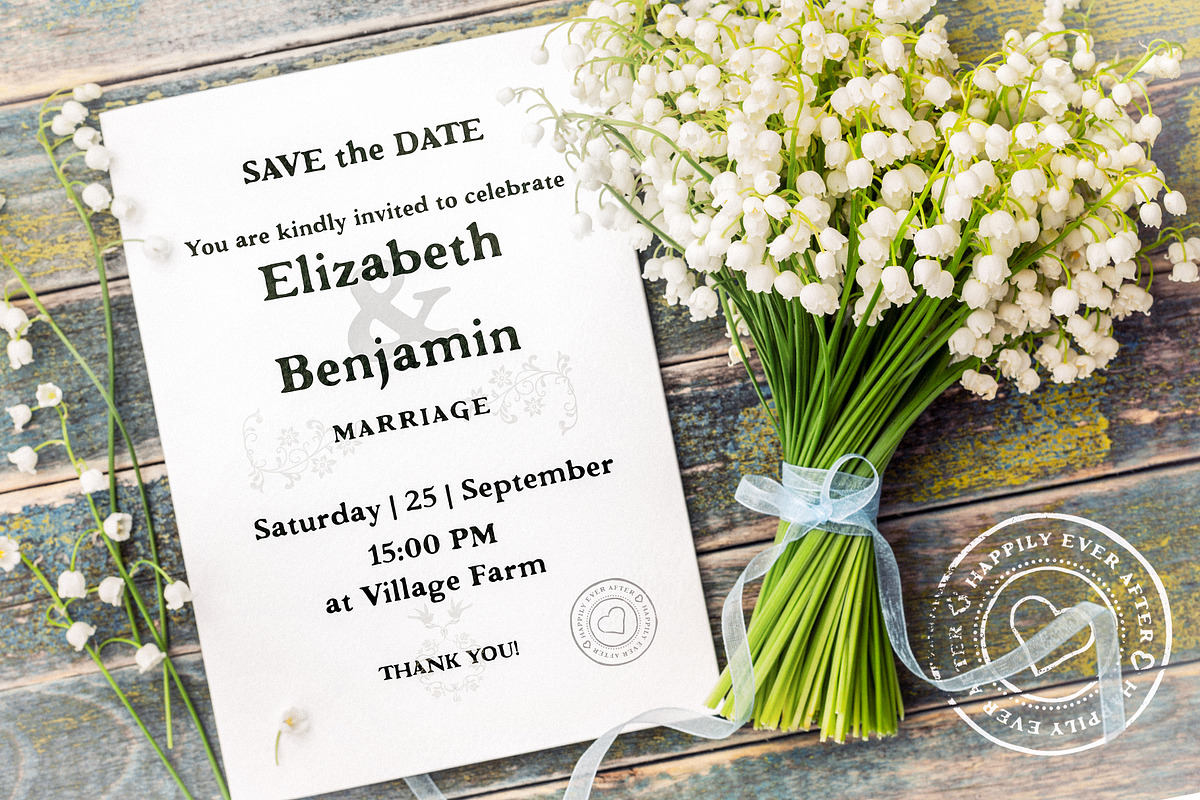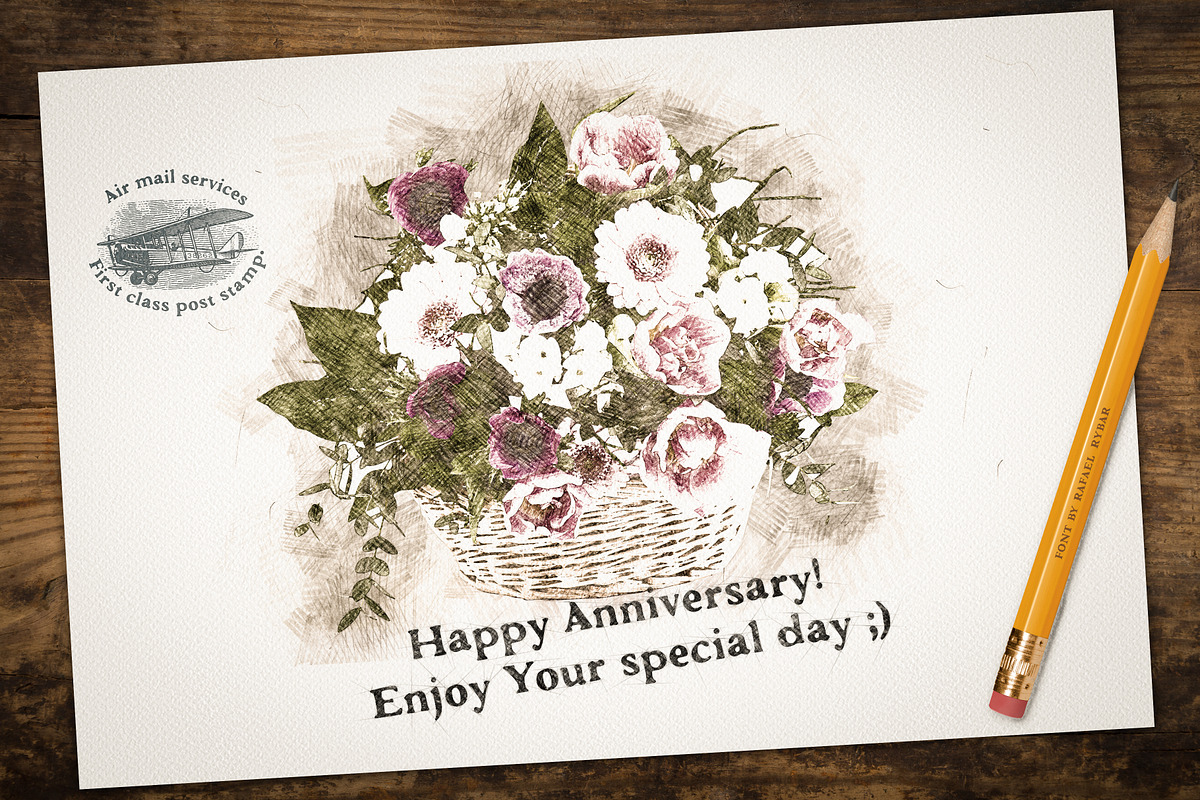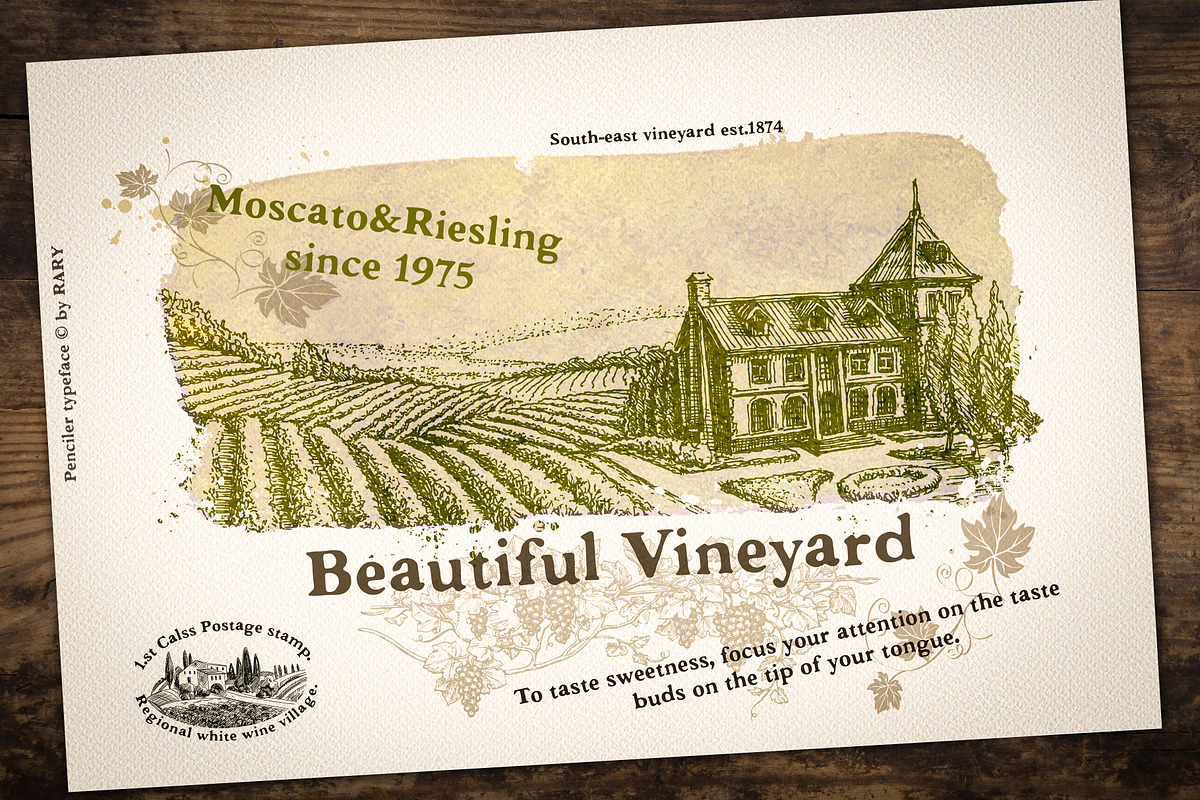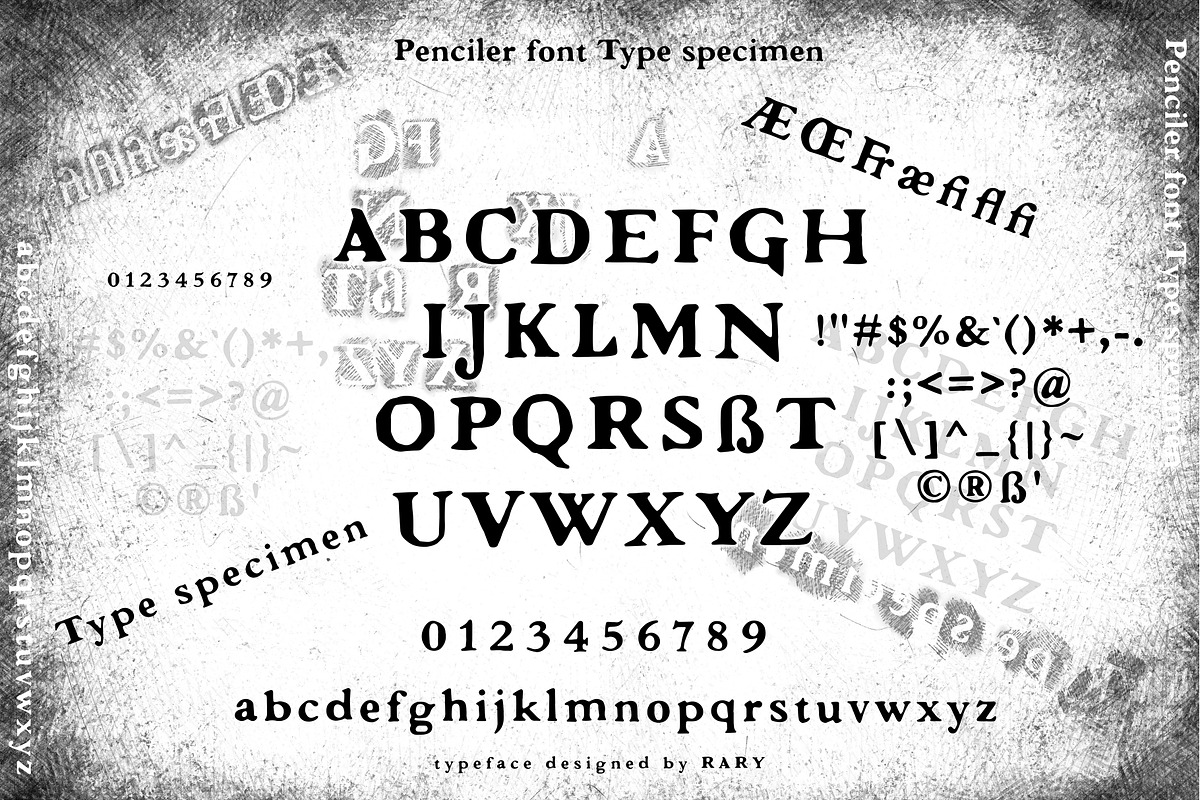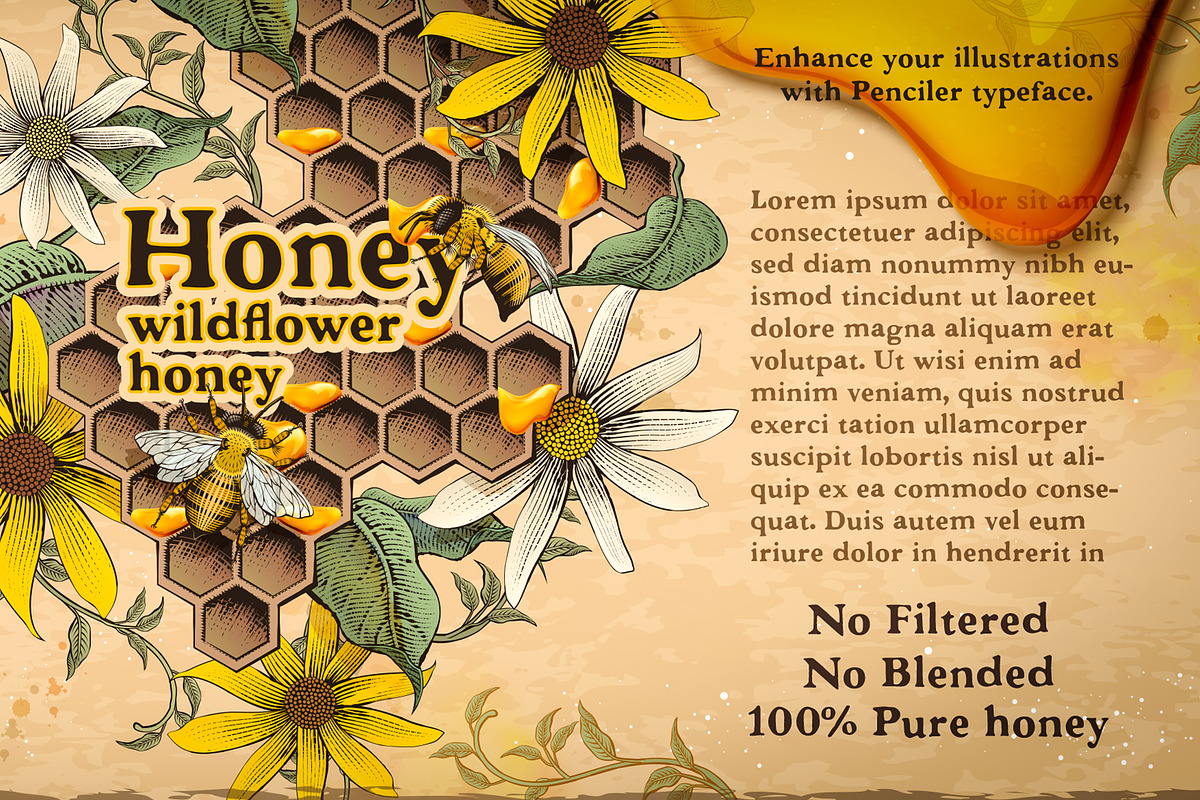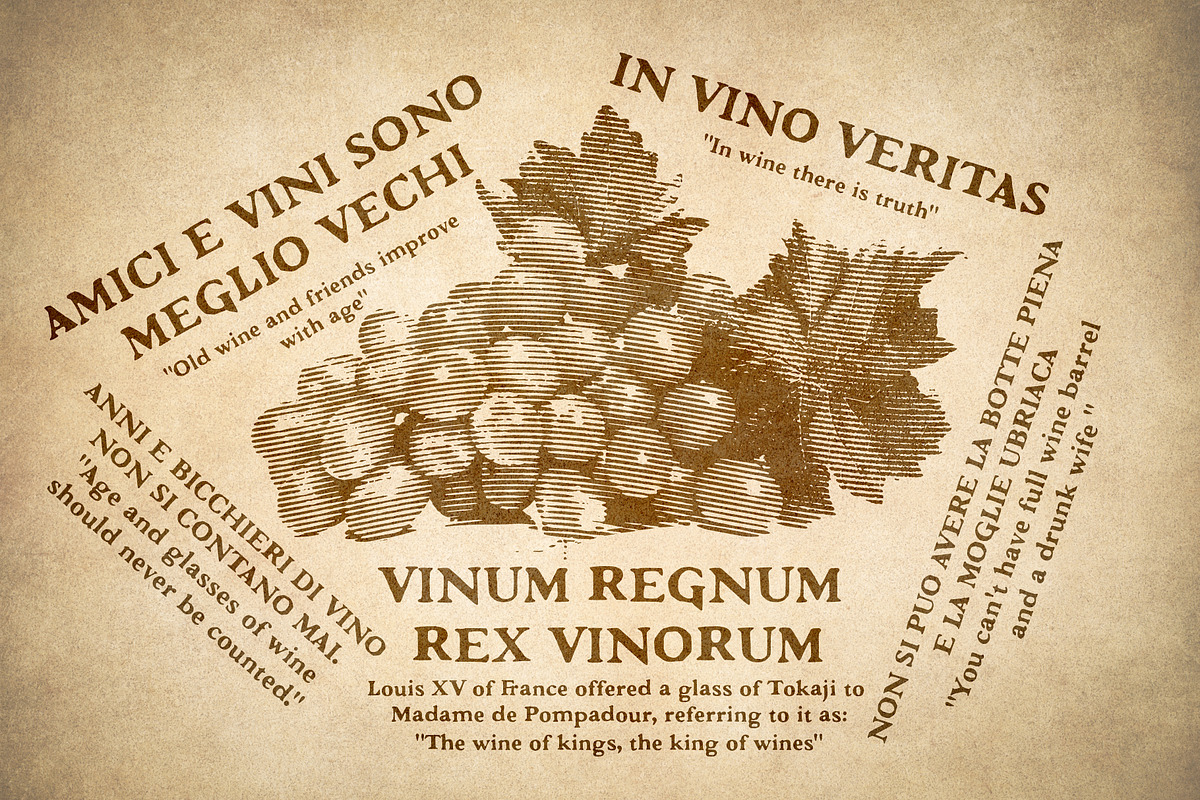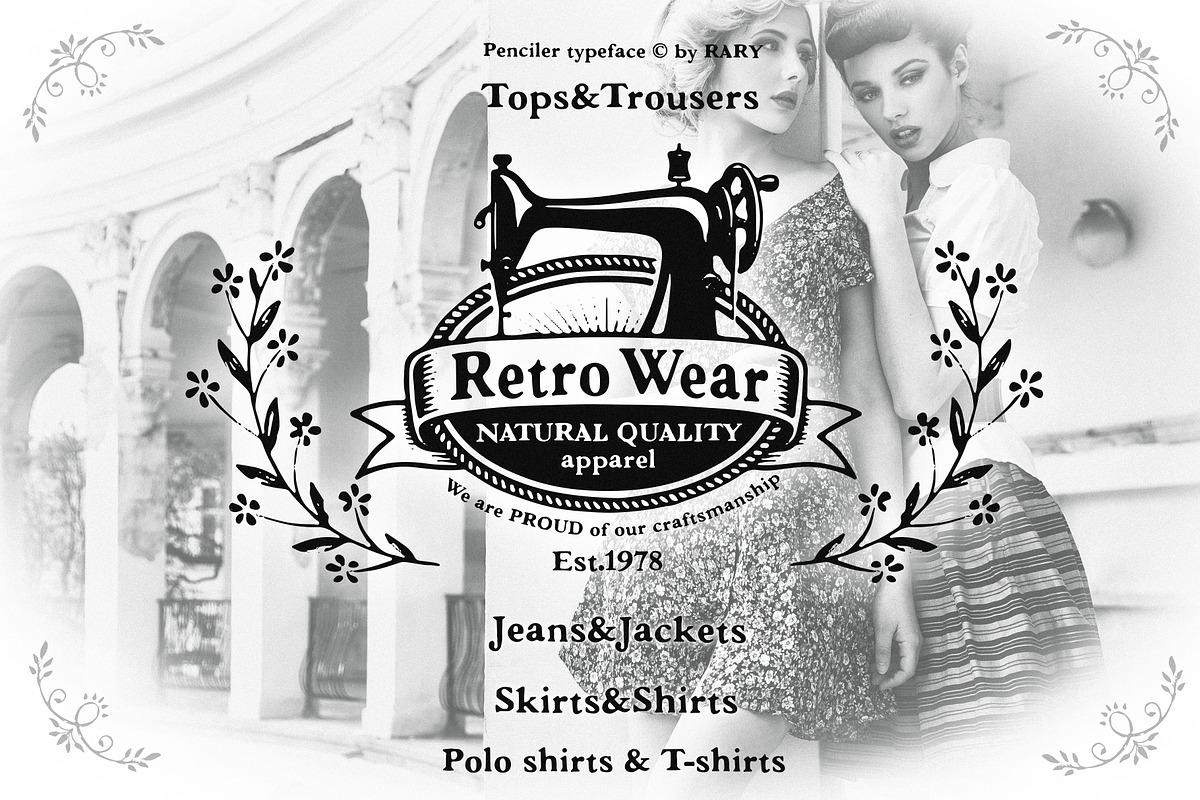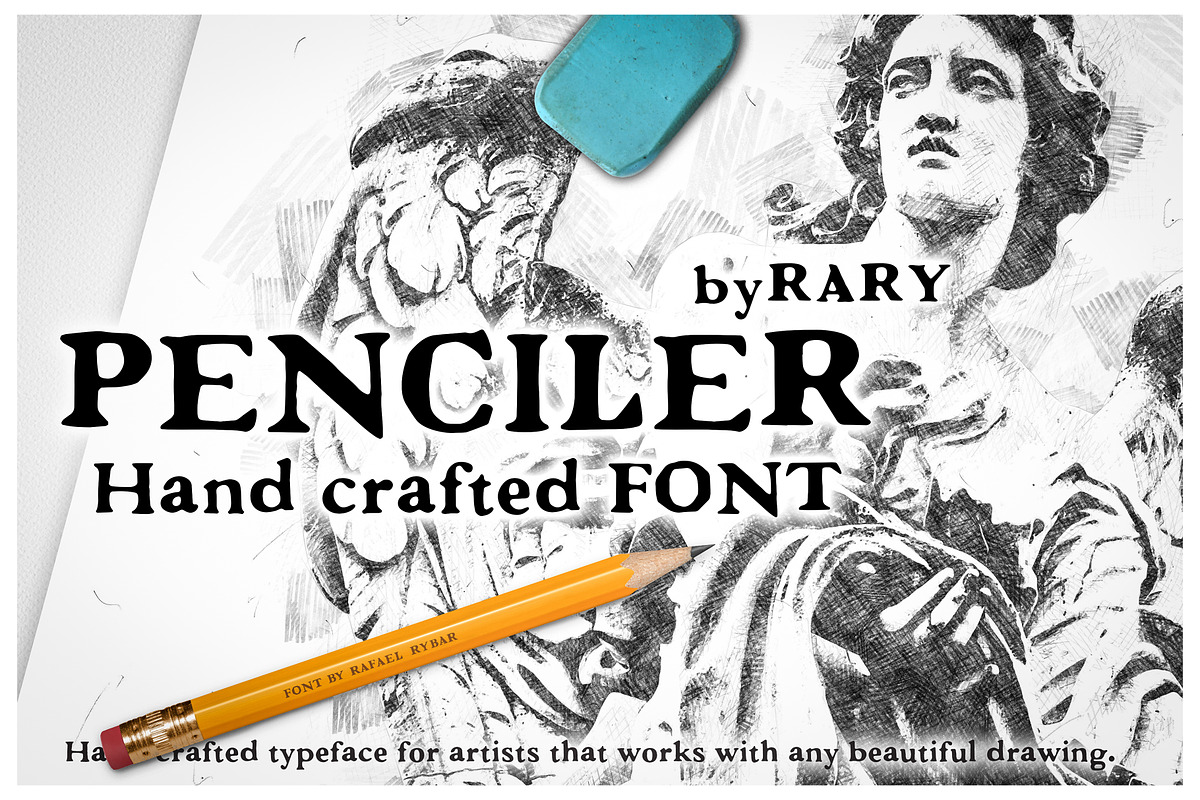
Penciler | Hand drawn font
Create a beautiful art piece with Penciler typeface that was hand-drawn by pencil and digitalized to the font. This vintage rustic font contains uppercase, lowercase, numbers, ligatures, and standard basic Latin glyphs. You can design wedding cards, wine labels, vintage and retro style brand logos in a professional artistic look by carefully handcrafted type and not just by applying a photoshop effect on a regular typeface.
Please take into account that this font does not contain international diacritics!